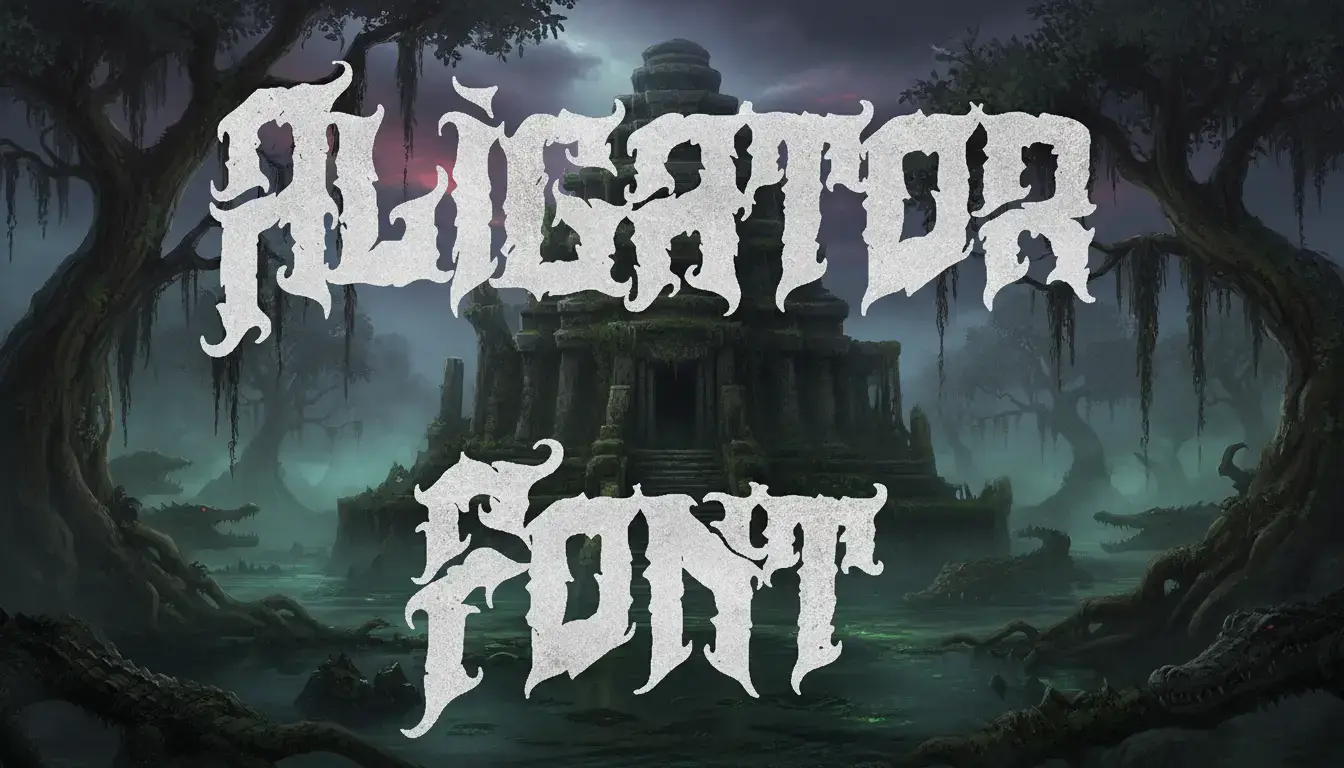
Aligator Font
Aligator is a gothic font created by Risman Ginarwan and released through Garisman Studio. Its pointed, heavy strokes give it a dark, dramatic blackletter look. You can download it for free and test it with your own words in the preview above.
What You Can Type With Aligator
With complete upper and lowercase letters and all ten digits, Aligator is ready for real wording, not just a single headline. Everyday marks like !, ?, # and $ are there too. It has 1 accented letters, but not the full set for Spanish or French, so test any non-English words first.
Where Aligator Works Best
Designers usually reach for fonts like Aligator when they're making tattoos, metal band logos and dark fantasy titles. Blackletter is very hard to read in all caps, so type in normal upper and lowercase.